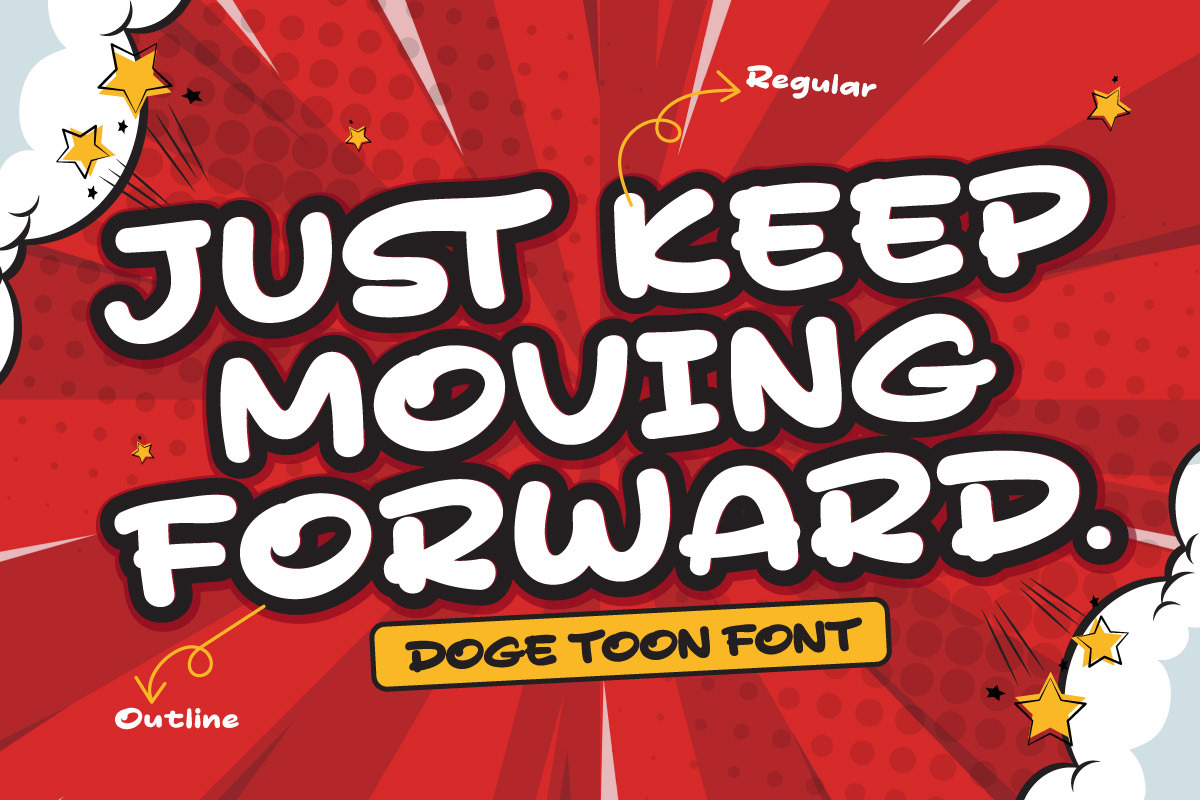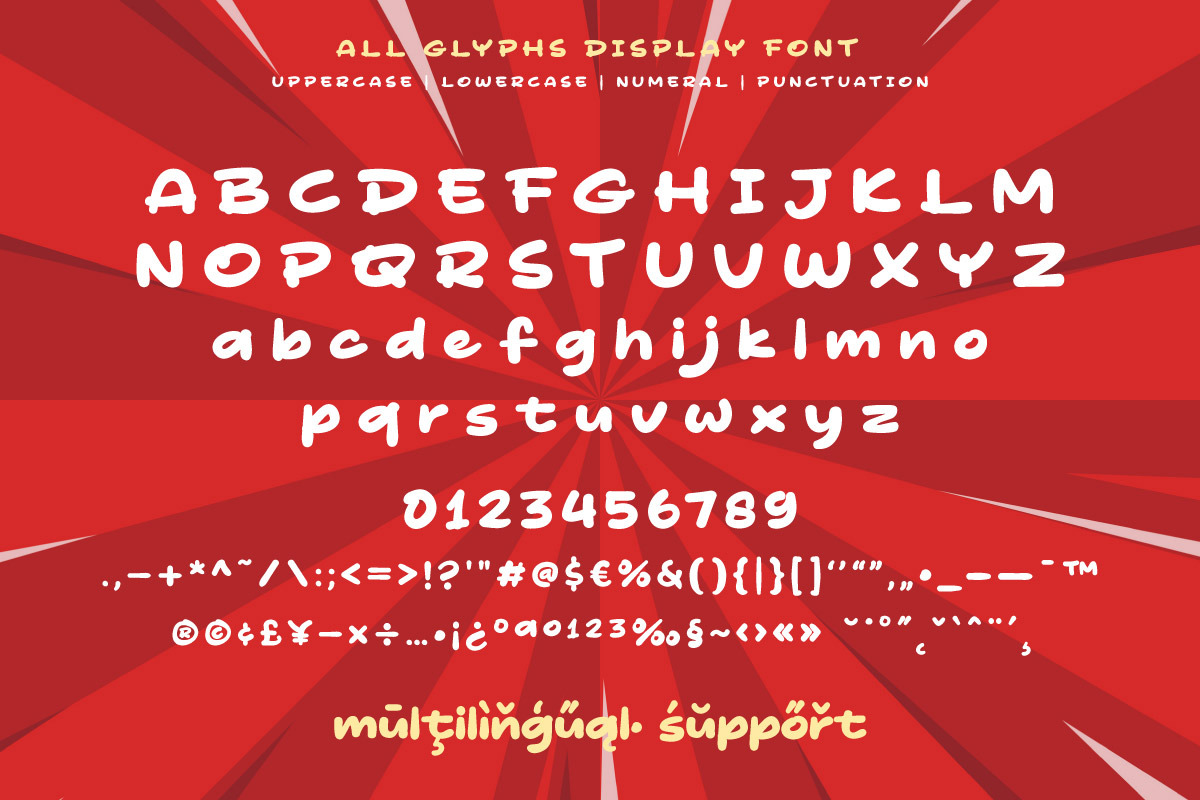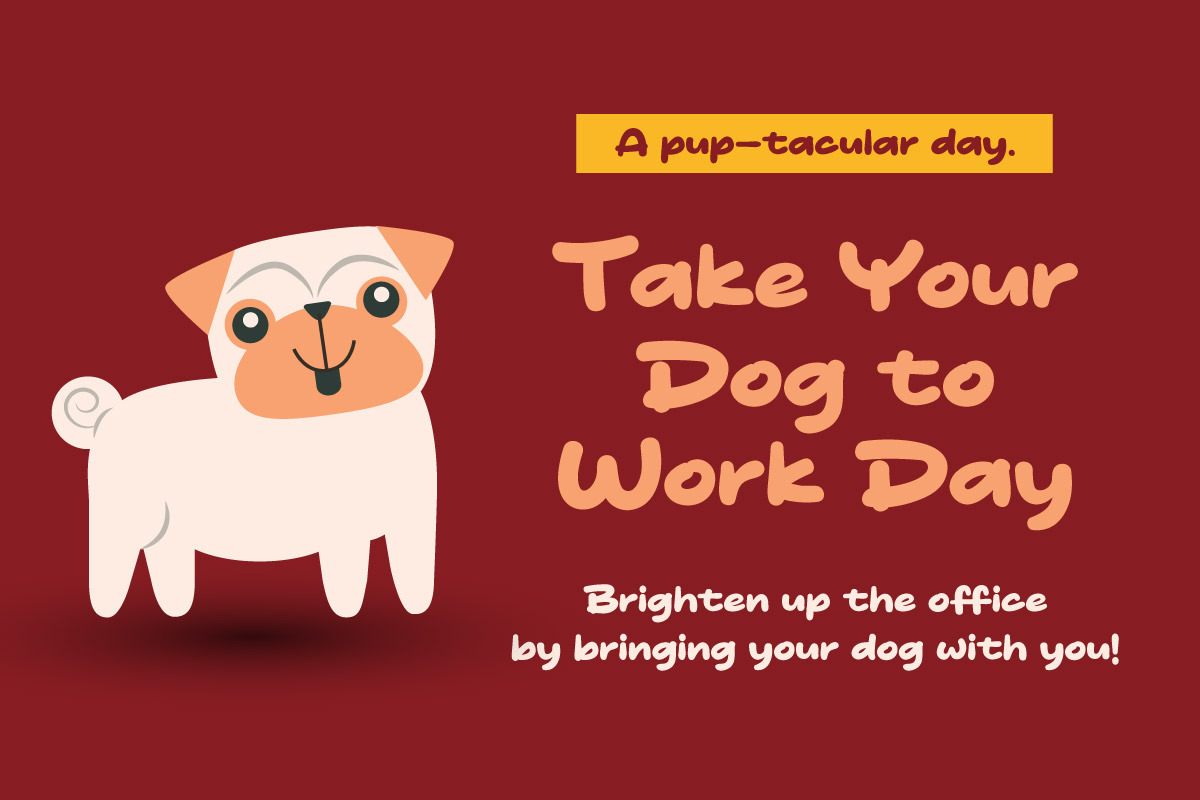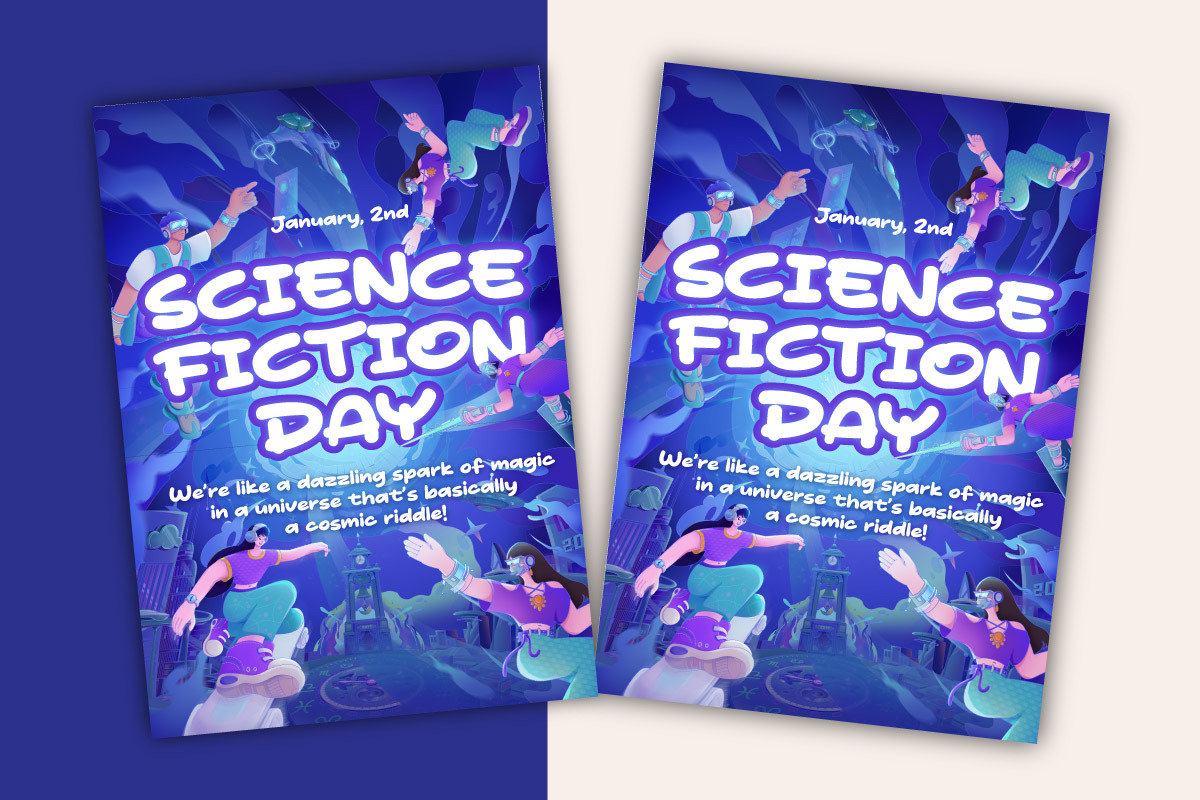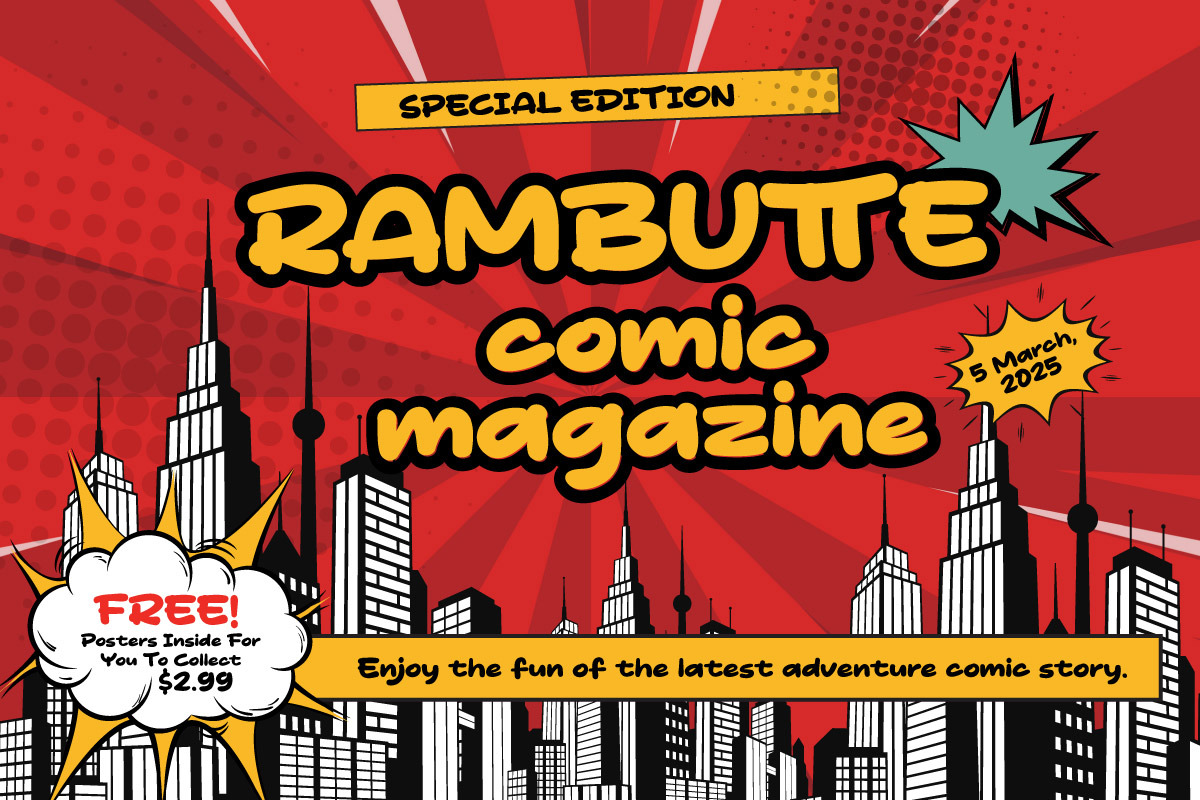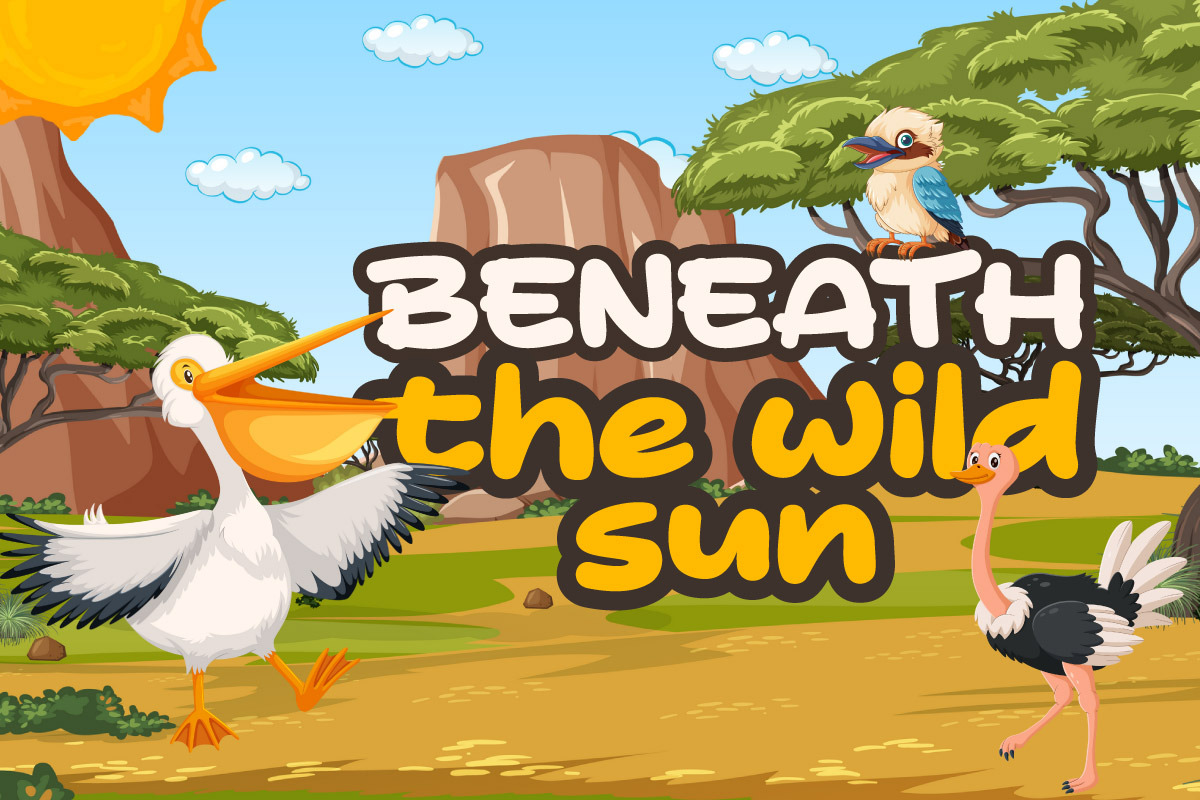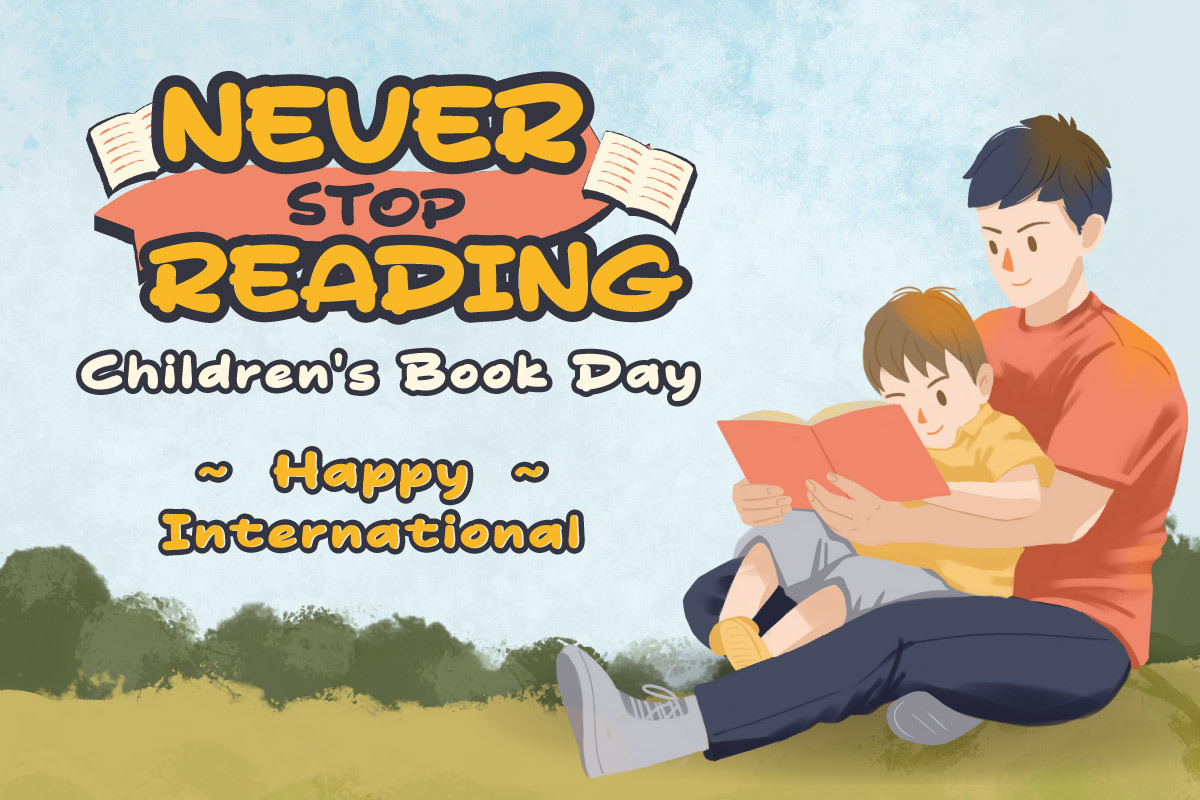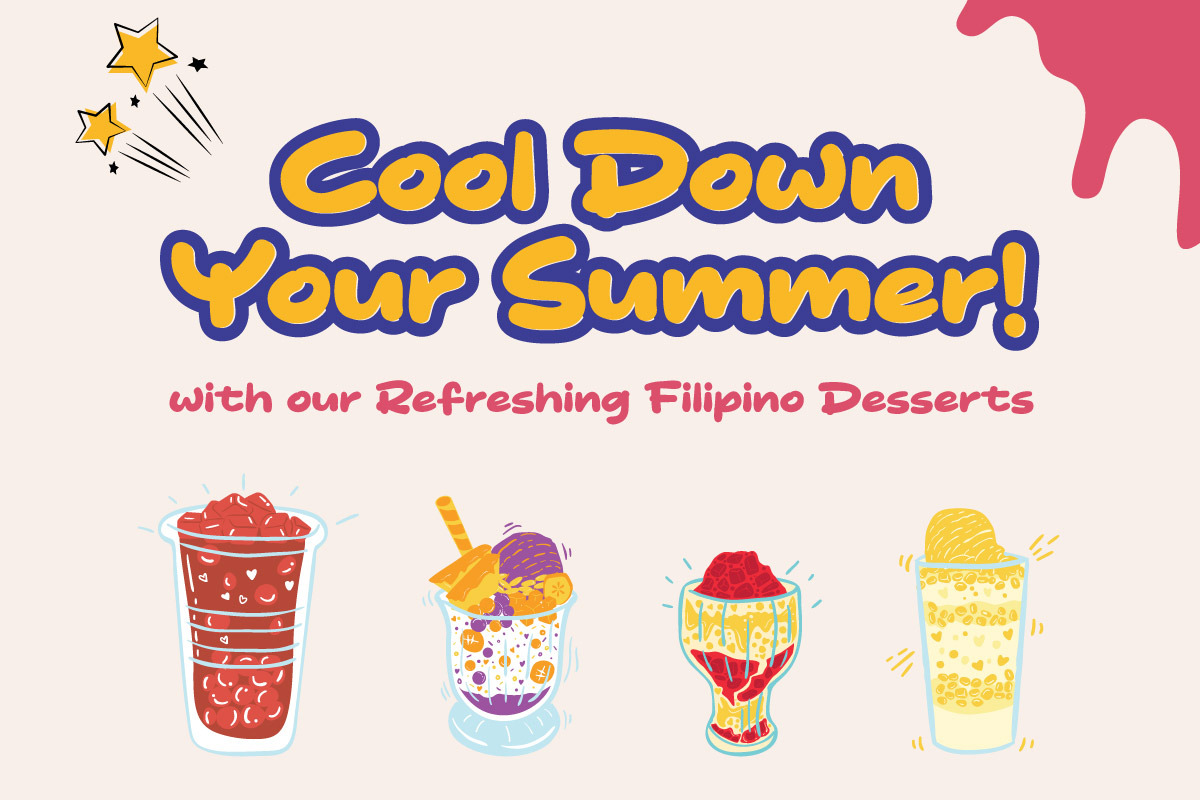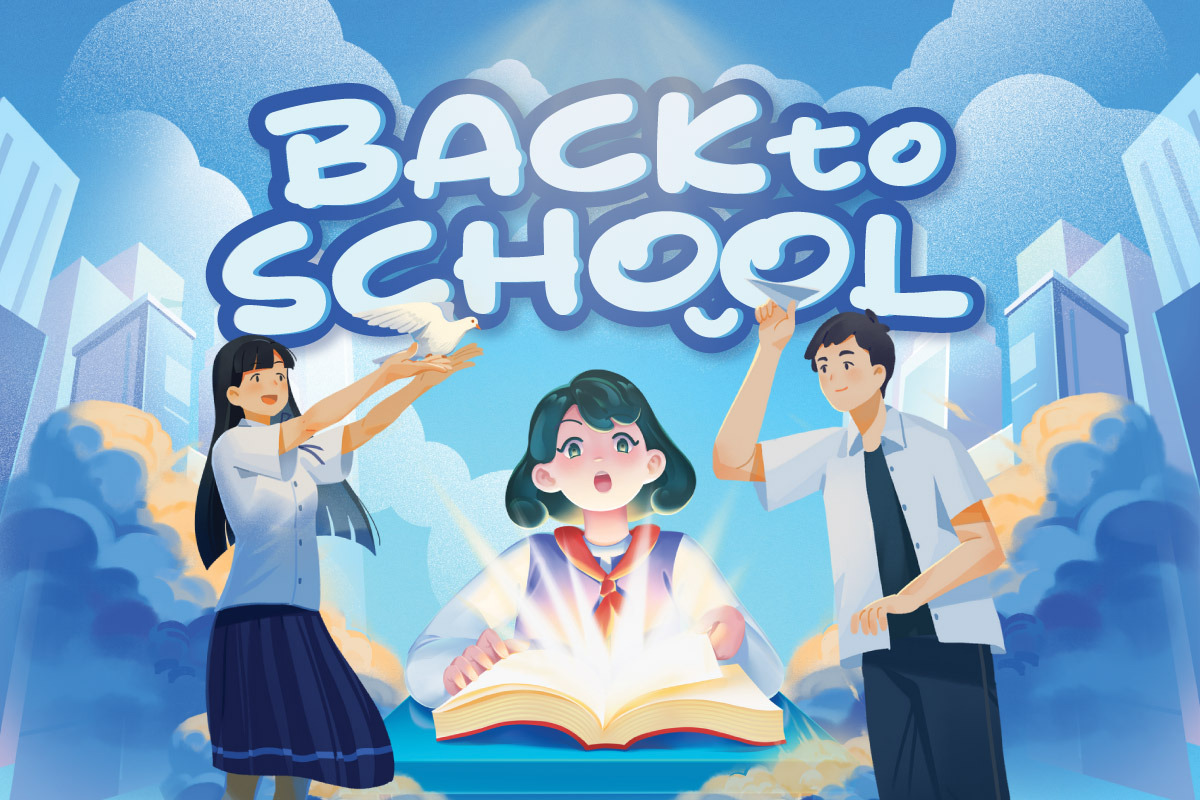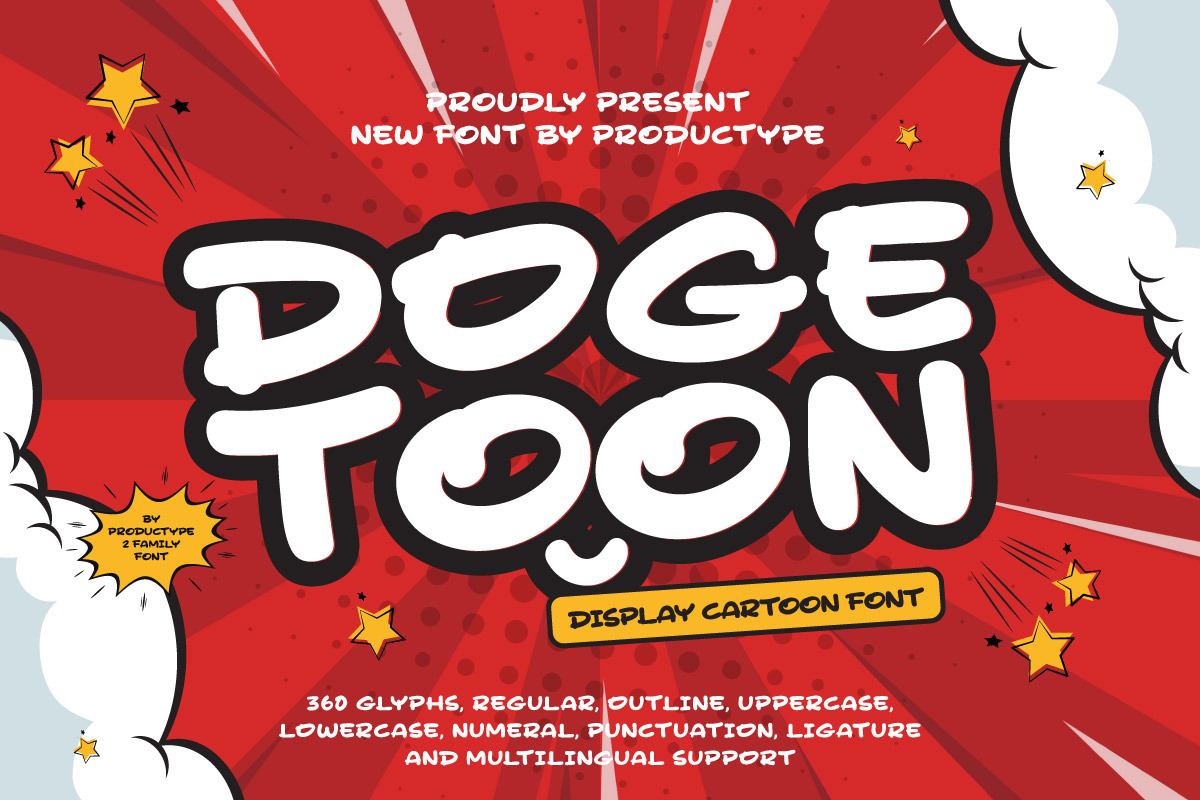
Doge Toon - Display Cartoon Font
Bring a burst of fun and personality to your designs with Doge Toon, a lively cartoon display font inspired by the whimsical charm of internet culture. With its bold, rounded letterforms and playful curves, Doge Toon captures the essence of humor and lightheartedness, making it perfect for children's books, comic strips, playful branding, memes, and more.
Whether you're designing a logo for a kid-friendly brand, creating eye-catching headlines, or adding a touch of joy to your social media graphics, Doge Toon delivers a delightful visual impact. Its versatile style ensures readability while infusing your projects with a sense of fun and creativity.